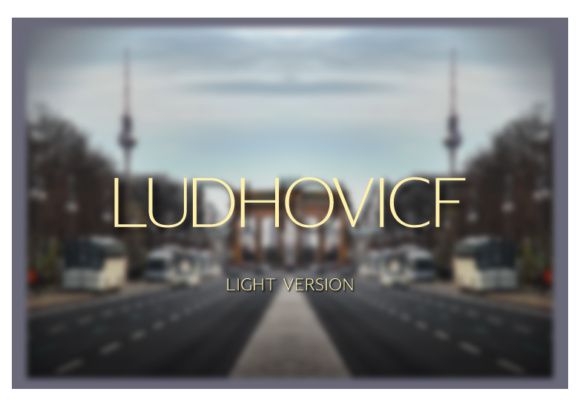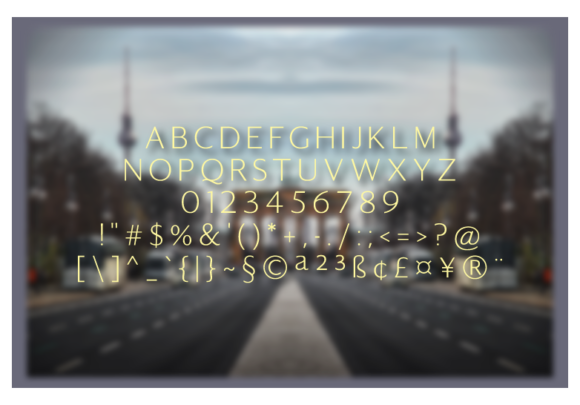
HomeSans Serif FontsLudhovicf Light Font Sans Serif Fonts Ludhovicf Light Font FacebookXPinterestWhatsApp Ludhovicf Light Font 1 of 2 About Ludhovicf Light Font Ludhovicf blends traditional Spanish architectural elements with modern, minimalist design. Its unique cut-ins & curves make it a true standout! DOWNLOAD NOW People also explored Hello Melon Duo Font Sideways Font Distance Relationship Font Humility Font Masquerco Font Almond Nougat Font Alafeda Font Halloween Spider Font Autumn Monogram Font 347 0 TagsLudhovicf Light Font Previous articleLudhovicf FontNext articleLudhovicf Extra Light Font LEAVE A REPLY Cancel reply Comment: Please enter your comment! Name:* Please enter your name here Email:* You have entered an incorrect email address! Please enter your email address here Website: Save my name, email, and website in this browser for the next time I comment. Personal Use Free 5cent Free Graffiti Personal Use Free Read more about this font Fillguy Font Personal Use Free Read more about this font Sea Gardens Personal Use Free Read more about this font Sarwendah Personal Use Free Read more about this font BLOG Where to Buy American Fonts Online in 2024 Where to Buy American Fonts Online: The Ultimate Guide for 2024 Looking for the perfect American font to elevate your design projects? You're in the... To increase your work productivity, choose the most readable fonts. Elegant Wedding Invitation Fonts – Handwritten & Script Fonts How to Install and Use Fonts on Windows, macOS, and Web Projects